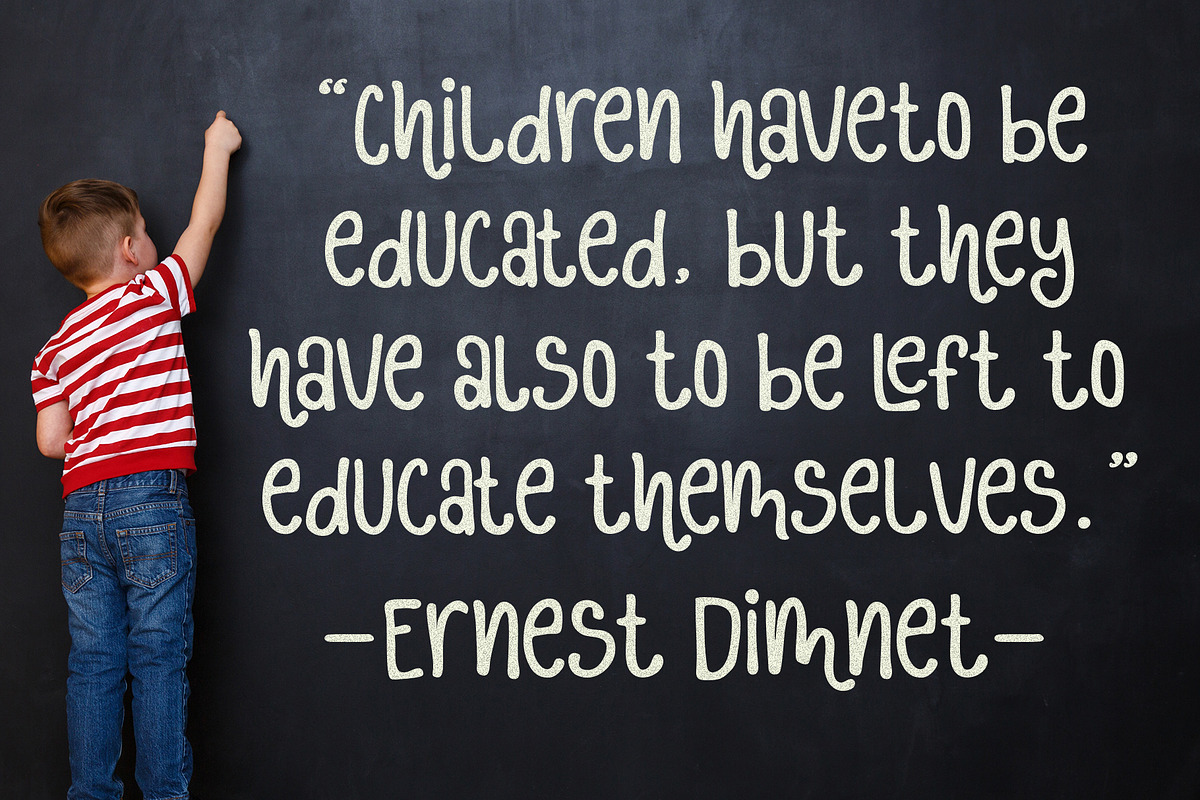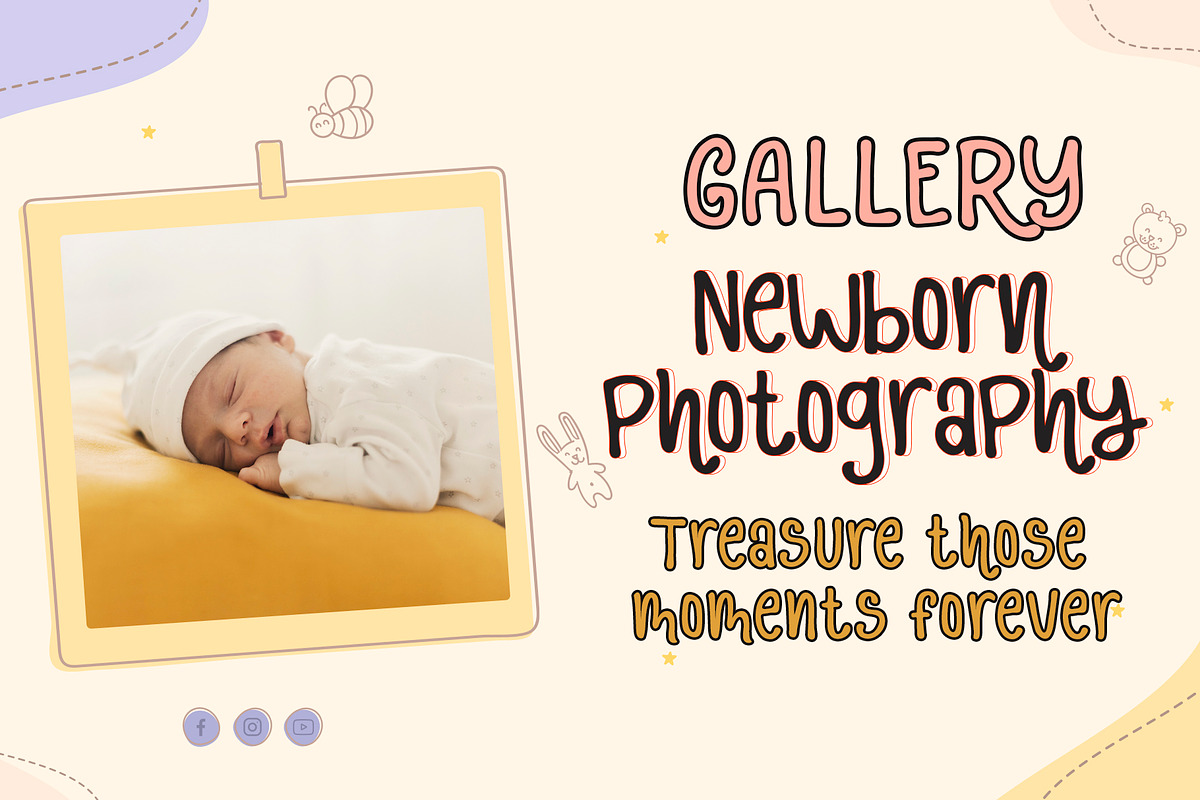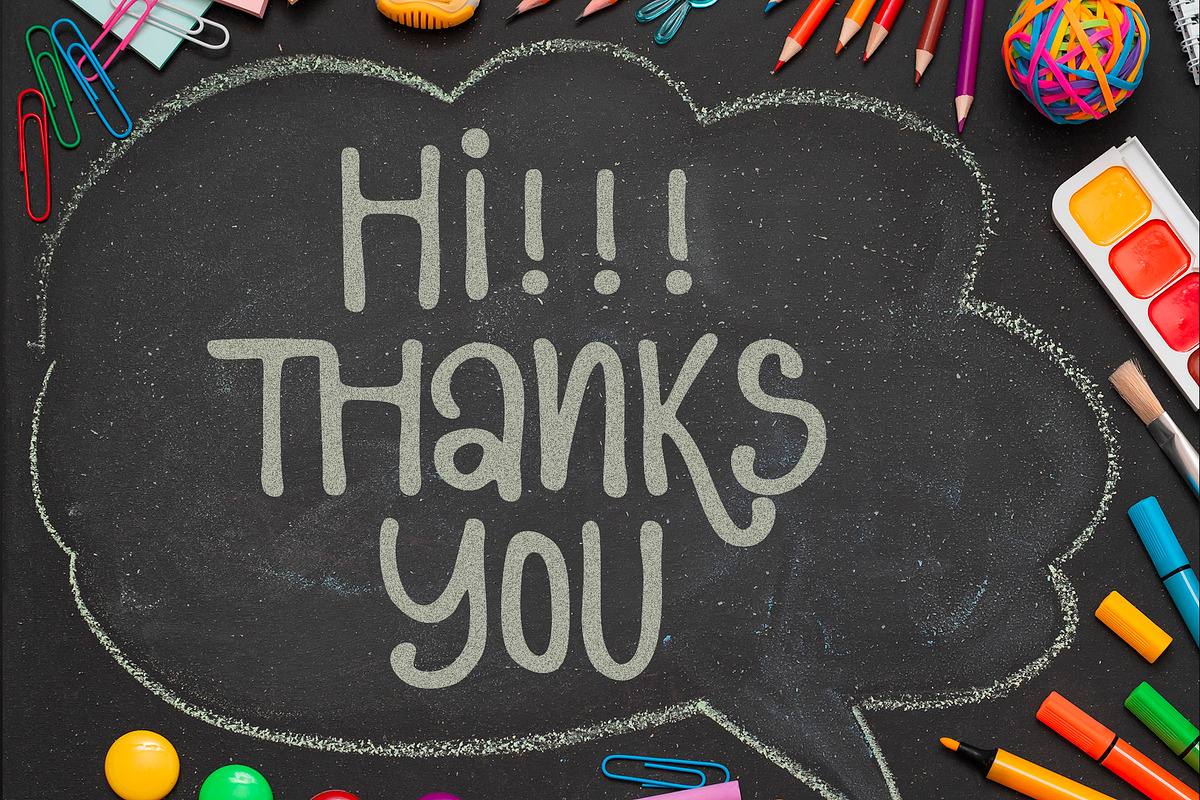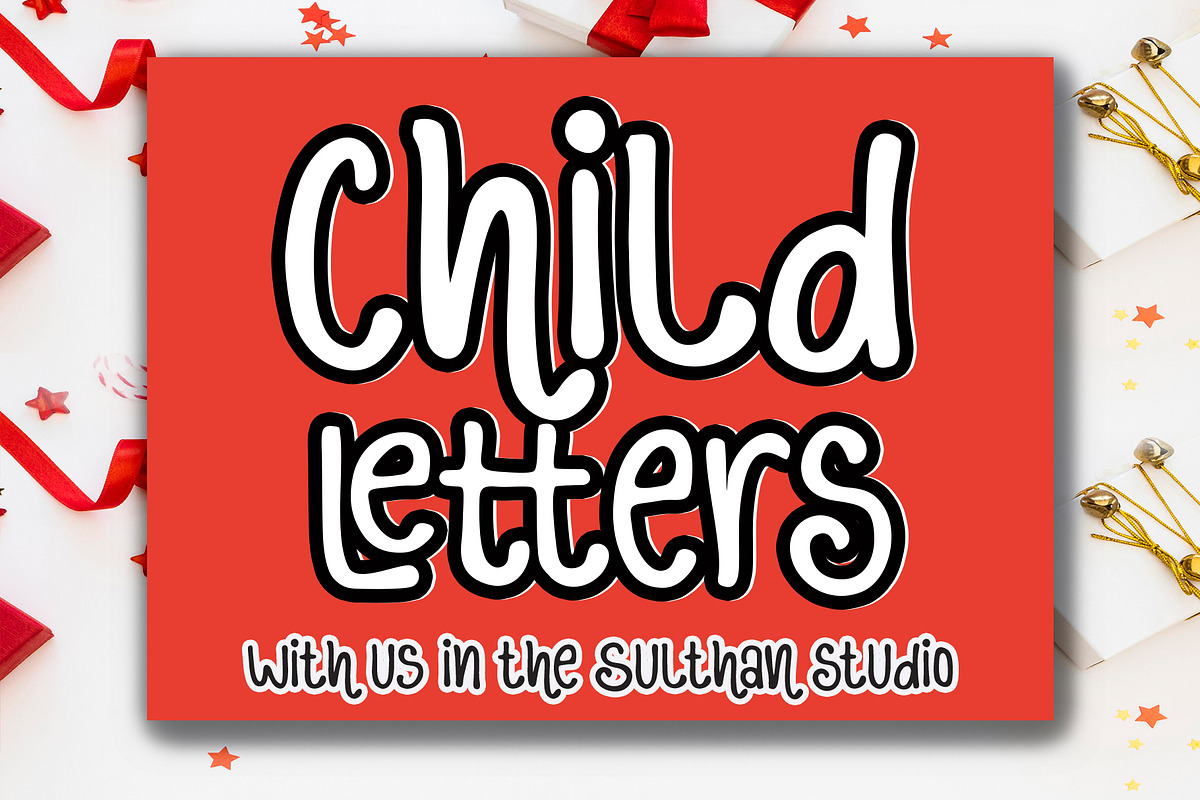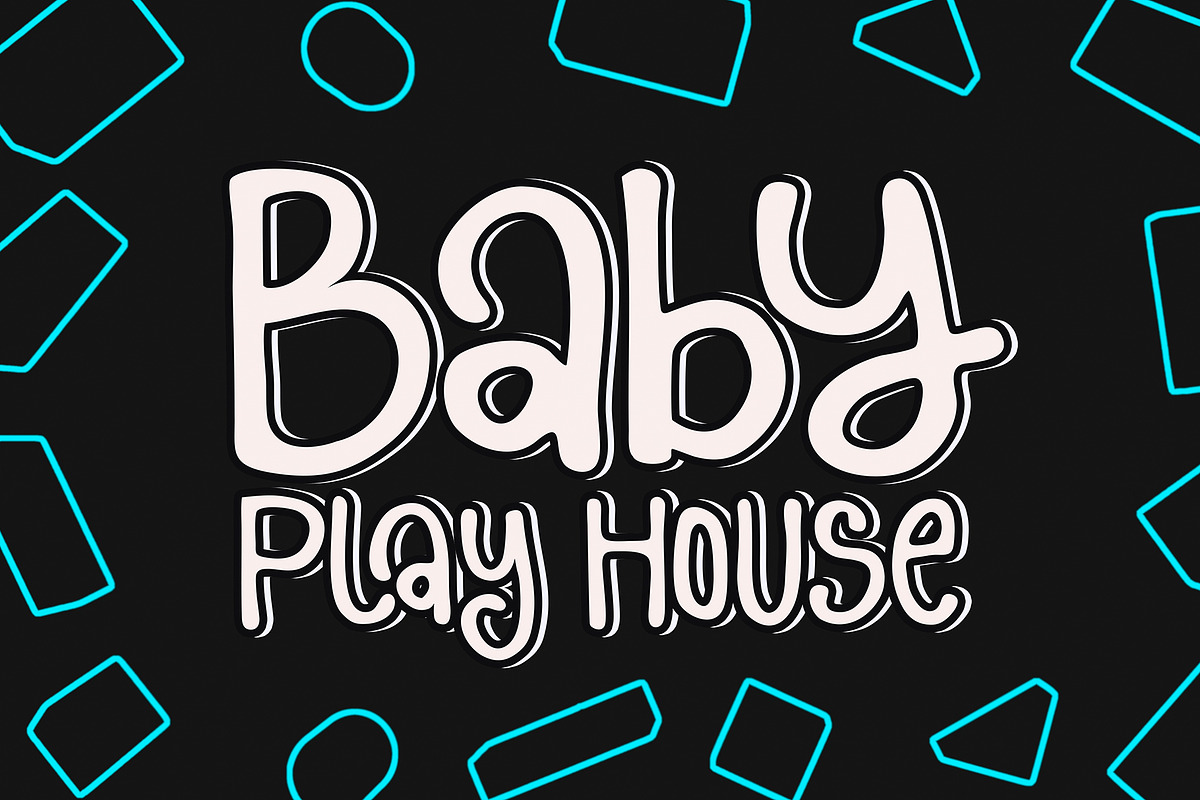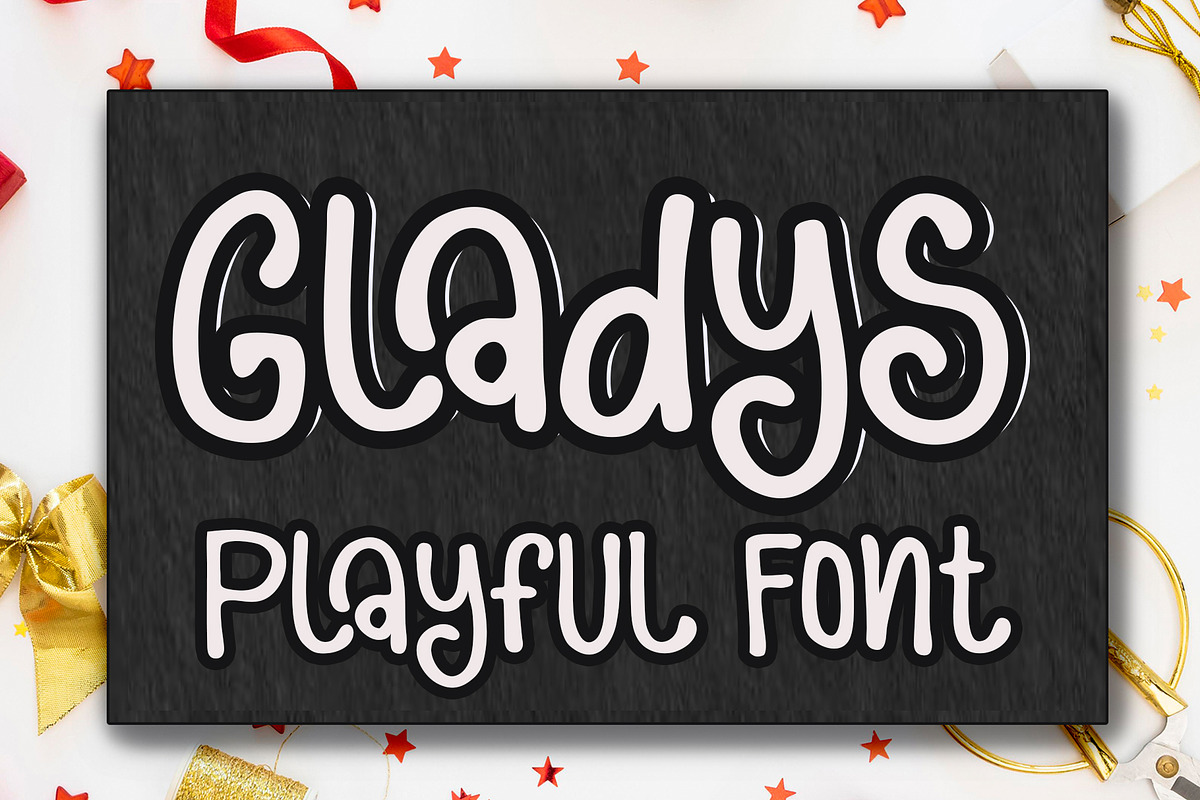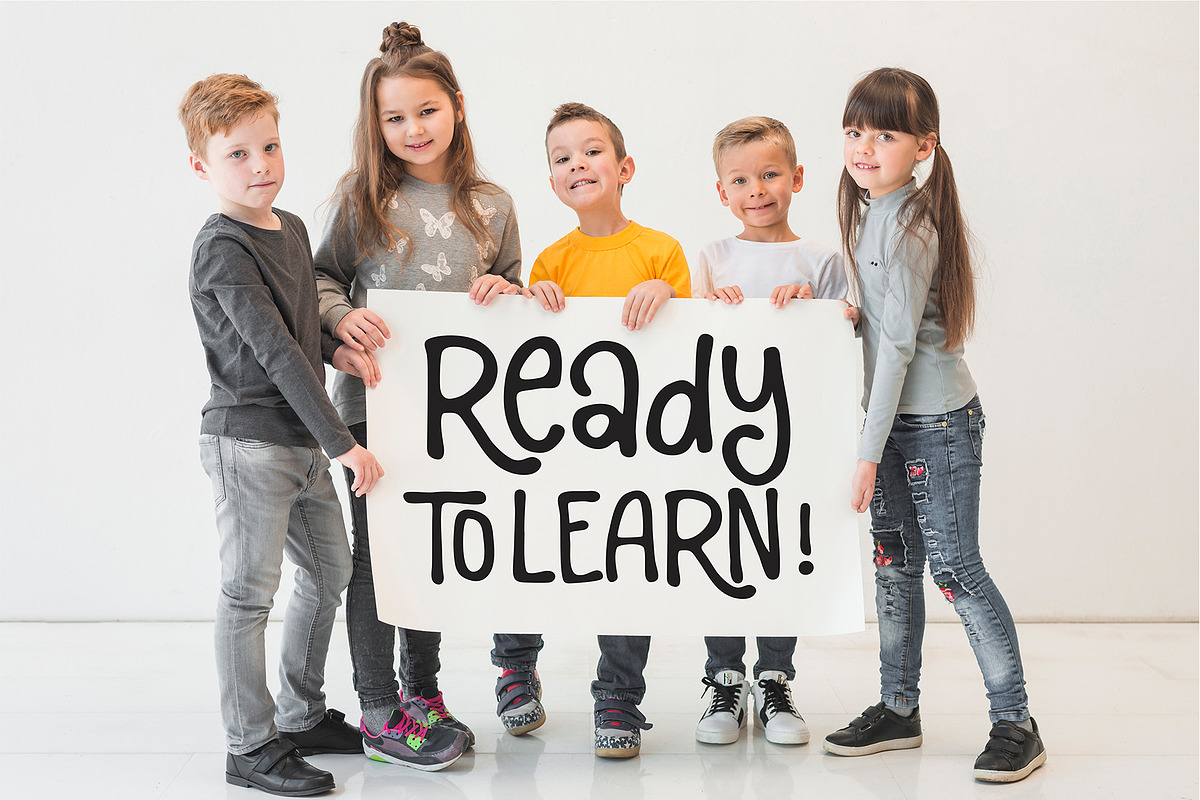
Gladys
Gladys is a playful handwritten font that we created for fun at home with our family on year-end holidays
This font consists of a complete set of upper and lowercase letters, numbers, punctuation, ligatures, and language support.